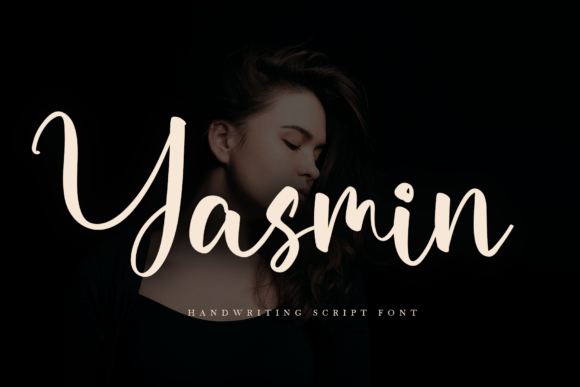
Behold, Yasmin Font - a charming handwritten font brimming with warmth and personality! This delightful script font is a gift from Creatype Designer, crafted to infuse your creative projects with a touch of heartfelt charm. Meet Yasmin, the script font that captivates hearts with its effortless elegance and playful spirit.
Step into a world of endless possibilities with Yasmin Font. Create Instagram posts that radiate with authenticity, design captivating wedding invitations that exude romance, or craft heartfelt letters that convey your emotions with sincerity. Yasmin's versatility knows no bounds; it dances gracefully across a myriad of creative projects, transforming each one into a masterpiece of heartfelt expression.
Imagine your wedding invitations adorned with Yasmin's delicate strokes, carrying the promise of a love story waiting to unfold. Or envision your social media posts blooming with Yasmin's charm, capturing the attention of your audience with its captivating allure. Yasmin Font is the ultimate companion for those seeking authenticity and connection in their creative endeavors.
Yasmin Font is not just a collection of letters; it's an open invitation to unleash your creativity and embrace the beauty of self-expression. Its user-friendly nature makes it a joy to work with, ensuring a seamless experience for designers of all skill levels. Dive into the world of Yasmin Font and let your imagination soar, knowing that every stroke, every curve, and every letter carries the essence of genuine artistry.
Unlock the power of Yasmin Font today and embark on a creative journey that will leave an indelible mark on the hearts of your audience. Let Yasmin's enchanting aura elevate your projects to new heights, captivating all who encounter its beauty. Embrace the magic of Yasmin Font and watch as your creative vision blossoms into a garden of heartfelt expression!